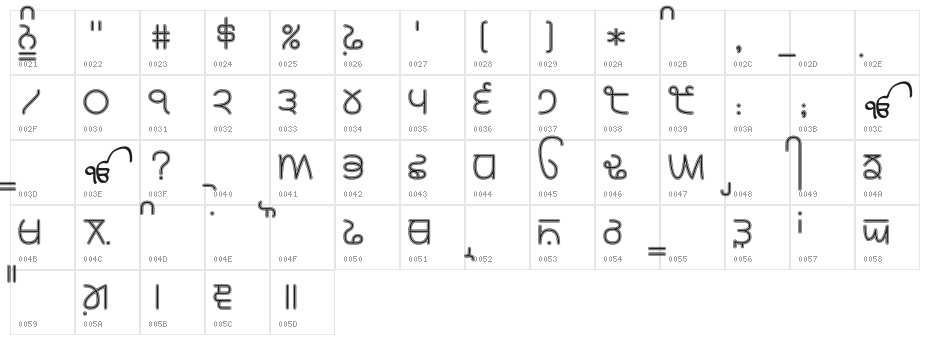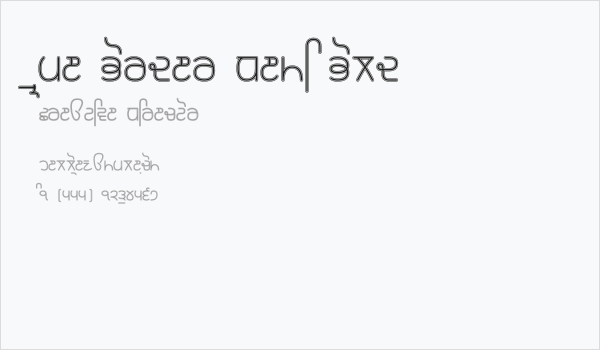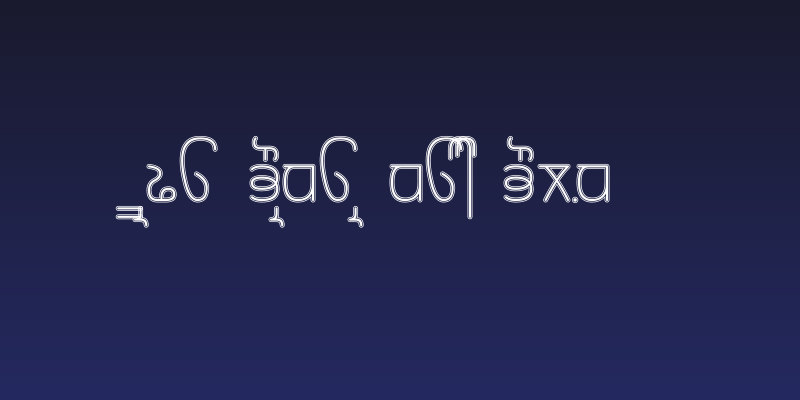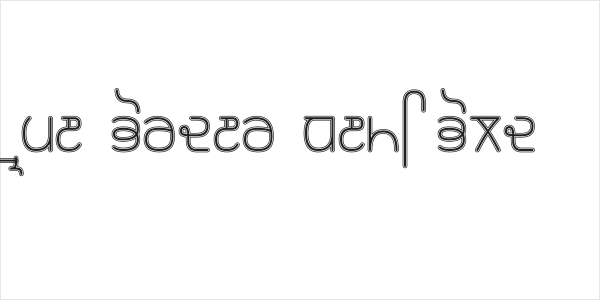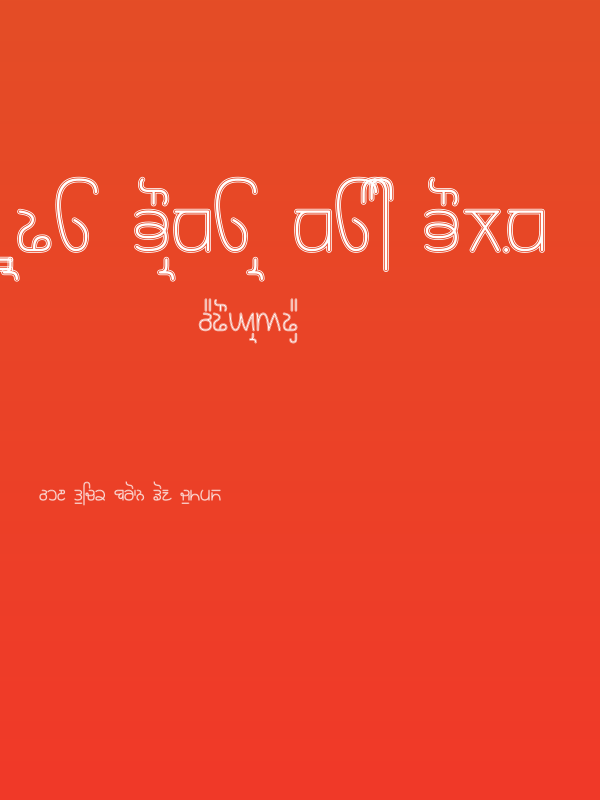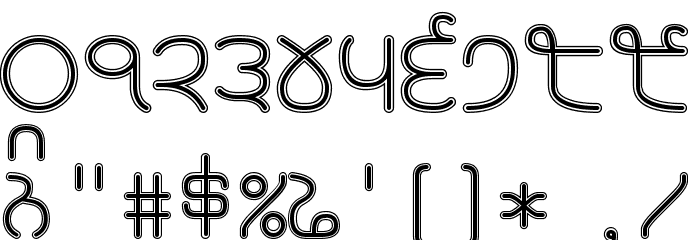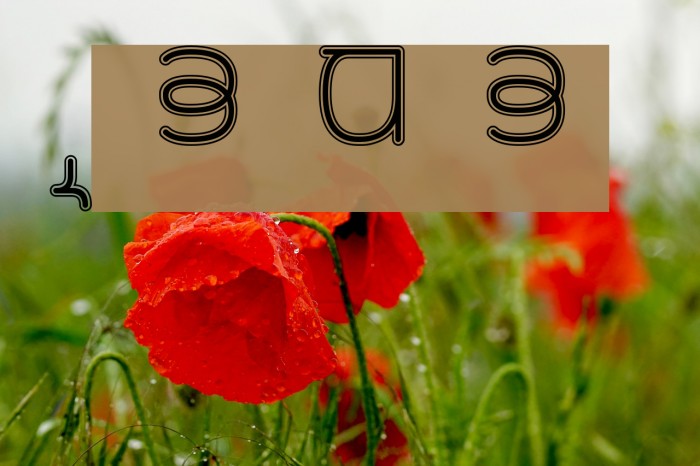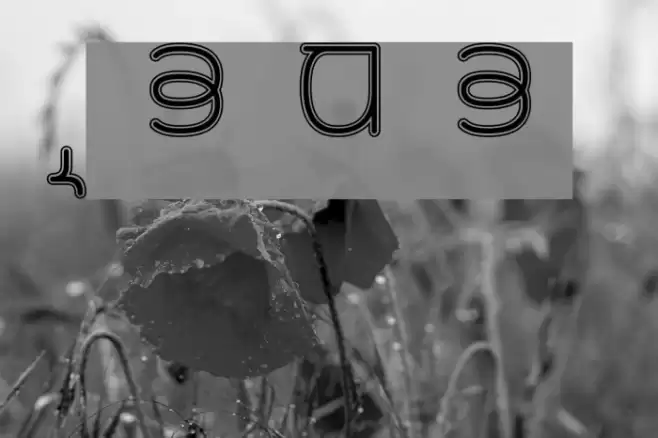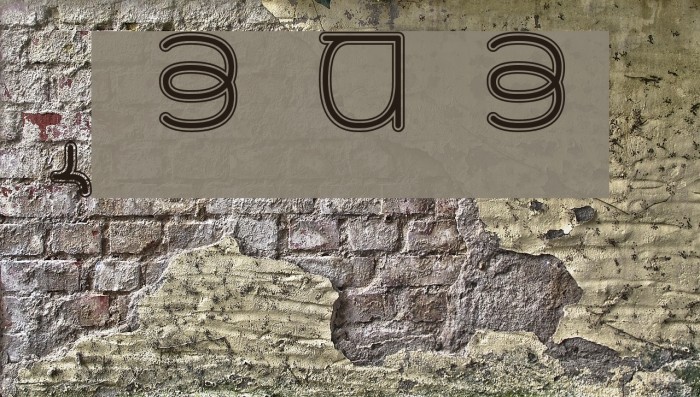
Rupe Border Demi Bold Font
Rupe Border Demi Bold Description
This font features a unique and artistic design with a double-line structure, creating a border effect around each character. The letters are bold and have a playful, decorative style that stands out. The strokes are consistent in width, giving it a uniform appearance. The font includes both uppercase and lowercase letters, numbers, and a variety of special characters. Its distinct look makes it suitable for creative projects where a bold statement is desired.
| Use Case | Logos, Posters, Artistic Designs |
| Proposed Projects | Ideal for posters, logos, artistic designs, and any project requiring a standout, decorative font. |